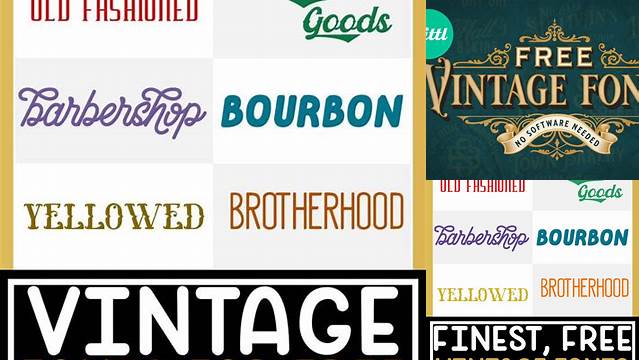
Best Free Vintage Fonts For Commercial Use In 2024
Introduction: Discovering the Charm of Vintage Fonts
Hey guys! Are you looking to infuse your designs with a touch of timeless elegance? Vintage fonts are your best bet! These fonts evoke nostalgia, adding character and authenticity to your projects. Whether you're working on a branding project, a poster, or a website, the right vintage font can make all the difference. But here’s the catch: finding free vintage fonts for commercial use can be a bit of a treasure hunt. That’s why we've put together this guide to help you navigate the world of vintage typography and discover some fantastic options without breaking the bank.
Why Use Vintage Fonts?
Using vintage fonts offers a unique way to connect with your audience. These fonts carry historical and cultural significance, instantly adding depth and personality to your designs. Think about it – each typeface tells a story, reflecting the era it originated from. For example, a bold Art Deco font can transport your audience to the roaring 20s, while a delicate script font might evoke the Victorian era. Vintage fonts can help you create a sense of nostalgia, authenticity, and craftsmanship. They are perfect for projects that aim to stand out from the modern, minimalist trends and capture a more classic and timeless feel.
Moreover, vintage fonts are incredibly versatile. They can be used in various design contexts, from logos and branding materials to posters, invitations, and websites. The key is to choose a font that aligns with your project's overall aesthetic and message. A well-selected vintage font can elevate your design, making it memorable and impactful. So, if you're aiming for a design that exudes character and history, exploring vintage fonts is definitely worth your while.
Top Free Vintage Fonts for Commercial Use
Alright, let’s get to the good stuff! Here are some of the best free vintage fonts for commercial use that you can incorporate into your designs:
1. Playfair Display
Playfair Display is a beautiful transitional serif typeface that exudes elegance and sophistication. Designed by Claus Eggers Sørensen, this font is inspired by the designs of the late 18th century, a period when the pointed pen was replaced by the quill. This historical context gives Playfair Display a distinct charm, making it perfect for headlines, titles, and other display purposes. The high contrast and delicate serifs make it a standout choice for projects that require a touch of classic beauty.
This font is particularly well-suited for branding materials, editorial designs, and invitations. Its versatility allows it to shine in both print and digital contexts. Playfair Display’s refined appearance makes it an excellent option for luxury brands, fashion magazines, and any project aiming for a high-end feel. The font's elegant curves and balanced letterforms ensure readability while maintaining a sophisticated aesthetic. It's also available in various weights, providing flexibility for different design needs. Whether you’re creating a striking logo or a graceful website header, Playfair Display will bring a touch of vintage glamour to your work. Remember, using a font like Playfair Display can elevate your design from ordinary to extraordinary.
2. Montserrat
Montserrat is a geometric sans-serif typeface designed by Julieta Ulanovsky. Inspired by the urban typography of the Montserrat neighborhood in Buenos Aires, this font has a modern yet vintage feel. Its clean lines and geometric shapes give it a contemporary edge, while its historical inspiration provides a subtle nod to the past. Montserrat is incredibly versatile, making it suitable for a wide range of design projects, from websites and branding to posters and packaging.
The font's readability and clean aesthetic make it a popular choice for body text as well as headlines. Its geometric structure ensures clarity, even at smaller sizes, making it perfect for both print and digital media. Montserrat’s versatility extends to its various weights and styles, allowing designers to create cohesive and visually appealing designs. This font is particularly effective in projects that aim for a balance between modernity and vintage charm. Whether you’re designing a sleek website or a classic poster, Montserrat can provide the perfect typographic foundation. The font’s neutral yet distinct personality makes it a go-to option for designers seeking a reliable and stylish typeface.
3. Bebas Neue
Bebas Neue is a clean and classic sans-serif font that has become a favorite among designers for its modern and minimalist aesthetic. Designed by Ryoichi Tsunekawa, Bebas Neue is known for its tall and condensed letterforms, which give it a strong visual impact. This font is perfect for headlines, posters, and branding materials where you need to make a statement. Its simplicity and clarity make it highly readable, even at a distance, making it an excellent choice for signage and advertising.
The font's versatile nature allows it to fit seamlessly into a variety of design styles, from contemporary to retro. Bebas Neue’s clean lines and geometric structure give it a timeless quality, making it a reliable choice for projects that need to convey a sense of modernity and sophistication. It’s particularly effective when paired with more ornate or decorative fonts, creating a balanced and visually appealing contrast. Whether you’re designing a bold headline or a minimalist poster, Bebas Neue provides the perfect typographic foundation. Its popularity among designers is a testament to its versatility and timeless appeal. Remember, Bebas Neue can help you make a bold statement without sacrificing readability.
4. Raleway
Raleway is an elegant sans-serif typeface originally designed by Matt McInerney as a single-weight display font. Later expanded into a full family by Pablo Impallari and Rodrigo Fuenzalida, Raleway boasts a sophisticated and modern aesthetic. Its clean lines and geometric forms make it highly versatile, suitable for a wide range of design applications. Raleway is particularly well-known for its distinctive “W” character, which adds a touch of uniqueness and character to any design.
This font is excellent for both headlines and body text, thanks to its readability and balanced letterforms. Its versatility extends to various design styles, making it a popular choice for branding, websites, and print materials. Raleway’s lighter weights are perfect for creating a delicate and sophisticated feel, while its bolder weights can make a strong visual impact. The font’s elegant appearance makes it a great option for projects that aim for a refined and modern look. Whether you’re designing a sleek website or a stylish brochure, Raleway provides a solid typographic foundation. The font’s widespread use and continued popularity highlight its timeless appeal and adaptability. Keep Raleway in mind when you need a font that blends elegance with modern simplicity.
5. Oswald
Oswald is a sans-serif typeface designed by Vernon Adams and later refined by Kalapi Gajjar and Cyreal. It was created as a reworking of the classic gothic typeface style, adapting it for the digital age. Oswald is characterized by its condensed proportions and slightly rounded terminals, giving it a friendly yet professional appearance. This font is perfect for headlines and titles, providing a strong and readable presence while maintaining a modern aesthetic.
The font's versatility makes it suitable for a wide range of design projects, from websites and branding to print materials and advertising. Oswald’s condensed form allows you to fit more text into a limited space, making it an excellent choice for layouts where space is a premium. Its clean lines and balanced letterforms ensure readability, even at smaller sizes. Oswald’s contemporary take on a classic style makes it a reliable option for projects that need to convey a sense of modernity and efficiency. Whether you’re designing a website header or a poster headline, Oswald can provide the perfect typographic impact. The font’s continuous refinement and widespread use demonstrate its enduring appeal and adaptability.
Tips for Using Vintage Fonts Effectively
Now that you've got some fantastic free vintage fonts for commercial use in your toolkit, let’s talk about how to use them effectively. Using vintage fonts isn't just about slapping them onto your design; it's about understanding how they work and how to pair them with other elements to create a cohesive and impactful design.
Pairing Fonts
Font pairing is crucial when working with vintage fonts. You want to create a balance between the vintage font and any other fonts you use in your design. A common approach is to pair a vintage display font with a clean, modern sans-serif for body text. This combination allows the vintage font to shine while maintaining readability for the main content. For instance, you could pair Playfair Display with Montserrat or Raleway for a sophisticated and balanced look. Another strategy is to use different weights and styles within the same font family to create visual hierarchy. This approach can be particularly effective with versatile fonts like Montserrat and Raleway, which offer a range of weights and styles. Experiment with different combinations to find what works best for your project, and don’t be afraid to break the rules – but always with intention!
Color and Imagery
Color and imagery play a significant role in complementing your vintage typography. When using vintage fonts, consider incorporating a color palette that reflects the era the font represents. For example, muted tones, pastels, and earthy colors can enhance the vintage feel. Pair these colors with images that evoke a sense of nostalgia, such as vintage photographs, illustrations, or textures. The goal is to create a cohesive visual experience that transports your audience to a specific time period. However, be mindful of overdoing it; too many vintage elements can make your design feel cluttered or dated. Aim for a balance between vintage and contemporary elements to create a design that is both timeless and modern. Remember, the right color and imagery can elevate your vintage typography, making your design more impactful and memorable.
Context is Key
The context of your design project should always guide your font choices. Consider the overall message you want to convey and the audience you're trying to reach. A formal event invitation, for example, might call for an elegant script font or a refined serif typeface like Playfair Display. On the other hand, a vintage-inspired poster for a music festival might benefit from a bolder, more impactful font like Bebas Neue or Oswald. Understanding the context helps you choose a font that not only looks good but also aligns with the project's purpose and tone. It's also important to consider the medium in which your design will be displayed. A font that looks great on a large poster might not be as effective on a small mobile screen. Always test your font choices in the intended context to ensure they maintain readability and visual appeal. So, before you choose a vintage font, ask yourself: Does it fit the message, the audience, and the medium?
Conclusion: Embrace the Timeless Appeal of Vintage Fonts
So there you have it – a comprehensive guide to finding and using free vintage fonts for commercial use! These fonts are a fantastic way to add character, history, and a touch of elegance to your designs. By understanding the importance of commercial licenses, exploring our top font recommendations, and following our tips for effective usage, you’ll be well-equipped to create stunning vintage-inspired designs. Remember, the key is to choose fonts that align with your project's message and aesthetic, and to use them in a way that enhances the overall design.
Vintage fonts offer a timeless appeal that can set your work apart from the crowd. They evoke nostalgia, create a sense of authenticity, and add a unique visual dimension to your projects. Whether you're designing a logo, a website, or a poster, incorporating vintage fonts can help you tell a compelling story and connect with your audience on a deeper level. So, go ahead, explore the world of vintage typography, and let your creativity flow. With the right fonts and a bit of imagination, you can create designs that are both timeless and impactful. Happy designing, guys!